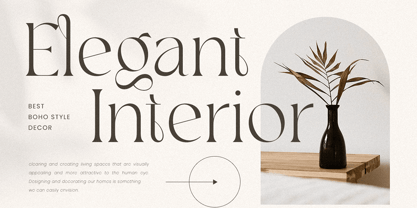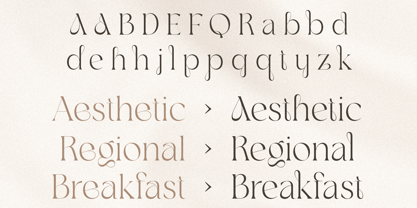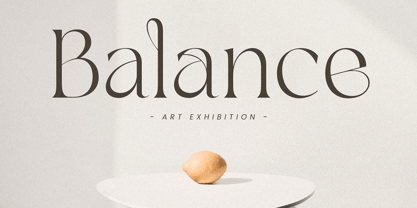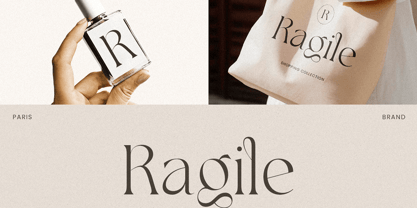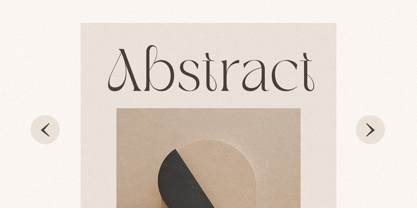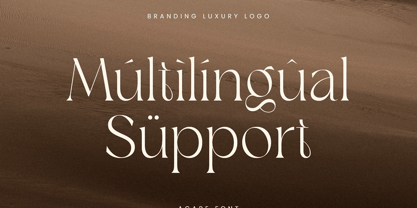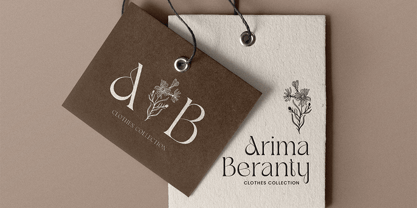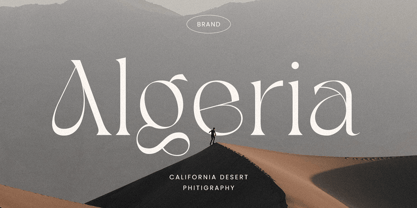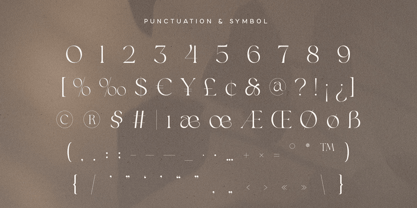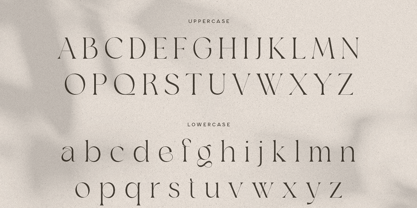
Avelior
by Only Fonts
The Avelior Font Family was designed by Olivia Love and published by Only Fonts. Avelior contains 1 styles. More about this family
Avelior – Luxury Branding Font Avelior is a refined luxury branding font designed for creators who seek elegance, sophistication, and timeless style. Inspired by premium fashion houses and modern luxury aesthetics, Avelior showcases graceful letterforms, balanced proportions, and beautifully crafted details that establish a distinctive visual identity. Its sophisticated design makes it the perfect choice for brands aiming to convey exclusivity, confidence, and exceptional quality. Crafted to elevate premium branding, Avelior is ideal for luxury logos, fashion labels, cosmetic packaging, jewelry brands, perfume collections, boutique businesses, hotel branding, editorial layouts, invitations, websites, and high-end marketing materials. Its elegant structure ensures excellent readability while delivering a polished and memorable appearance across both print and digital media. Avelior is tailored for designers who appreciate typography that merges beauty with functionality. The included alternative characters offer greater creative flexibility, enabling the creation of custom logo designs and unique brand identities with ease. Whether launching a premium fashion collection or developing a sophisticated corporate identity, Avelior adds a luxurious touch that enhances every visual composition. With its timeless character and versatile design, Avelior transforms simple typography into an elegant branding element that leaves a lasting impression. Its harmonious blend of modern refinement and classic luxury makes it an essential addition to any designer's premium font collection. Avelior Font Features: • Unique alternative characters • Elegant luxury branding style • Uppercase and lowercase letters • Numerals, punctuation, and symbols • OpenType features • Multilingual support • Perfect for logos, branding, packaging, editorials, invitations, and luxury marketing materials • Suitable for both print and digital projects
Designers: Olivia Love
Foundry: Only Fonts